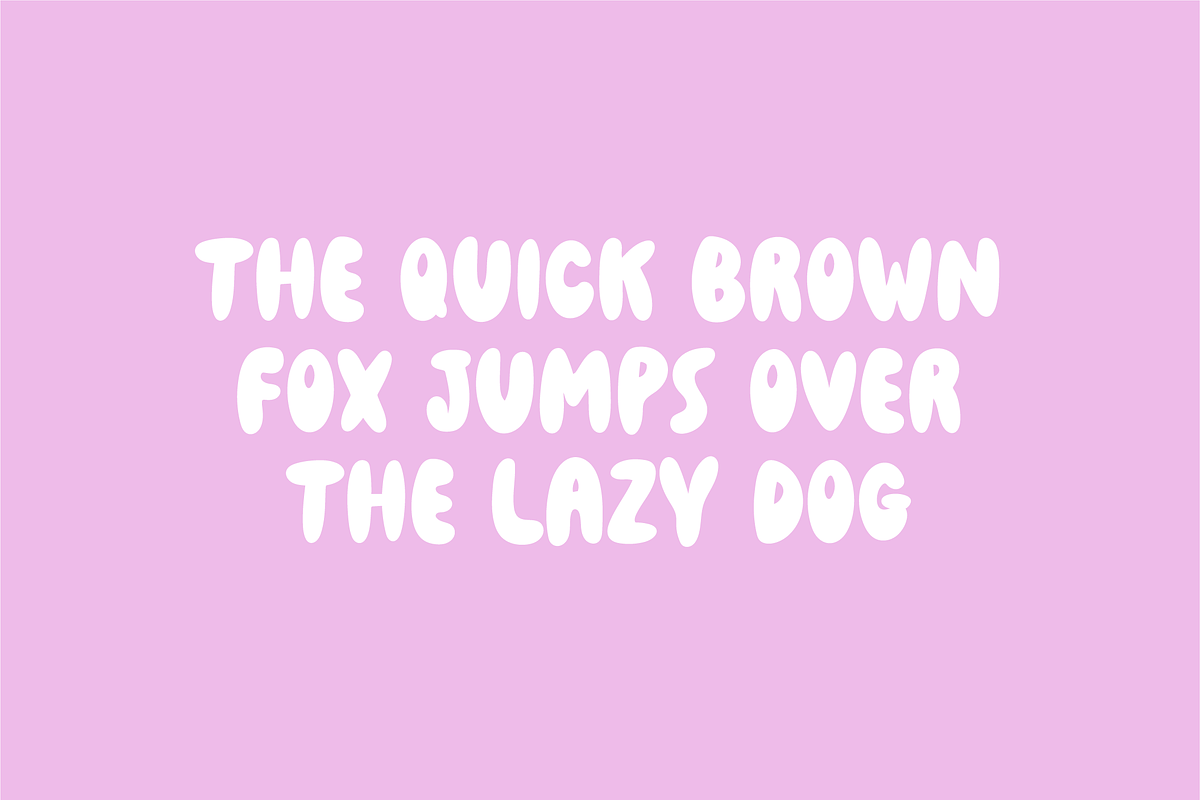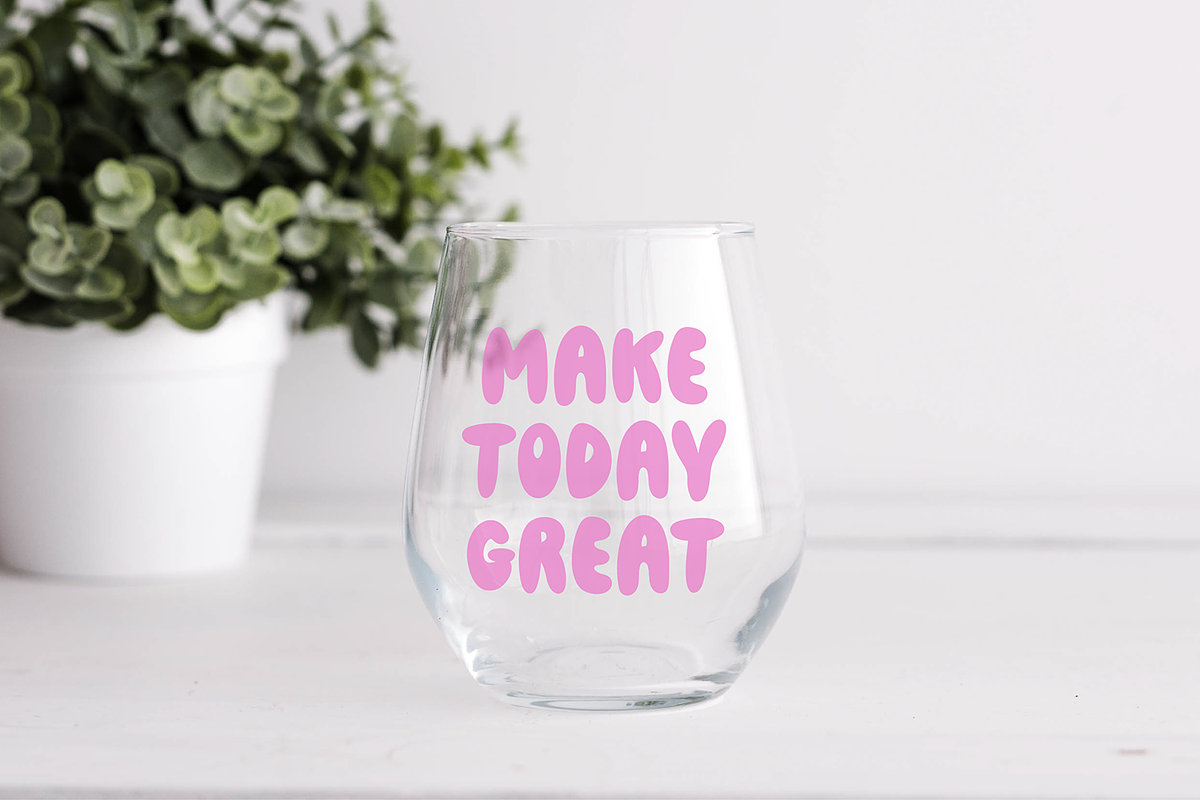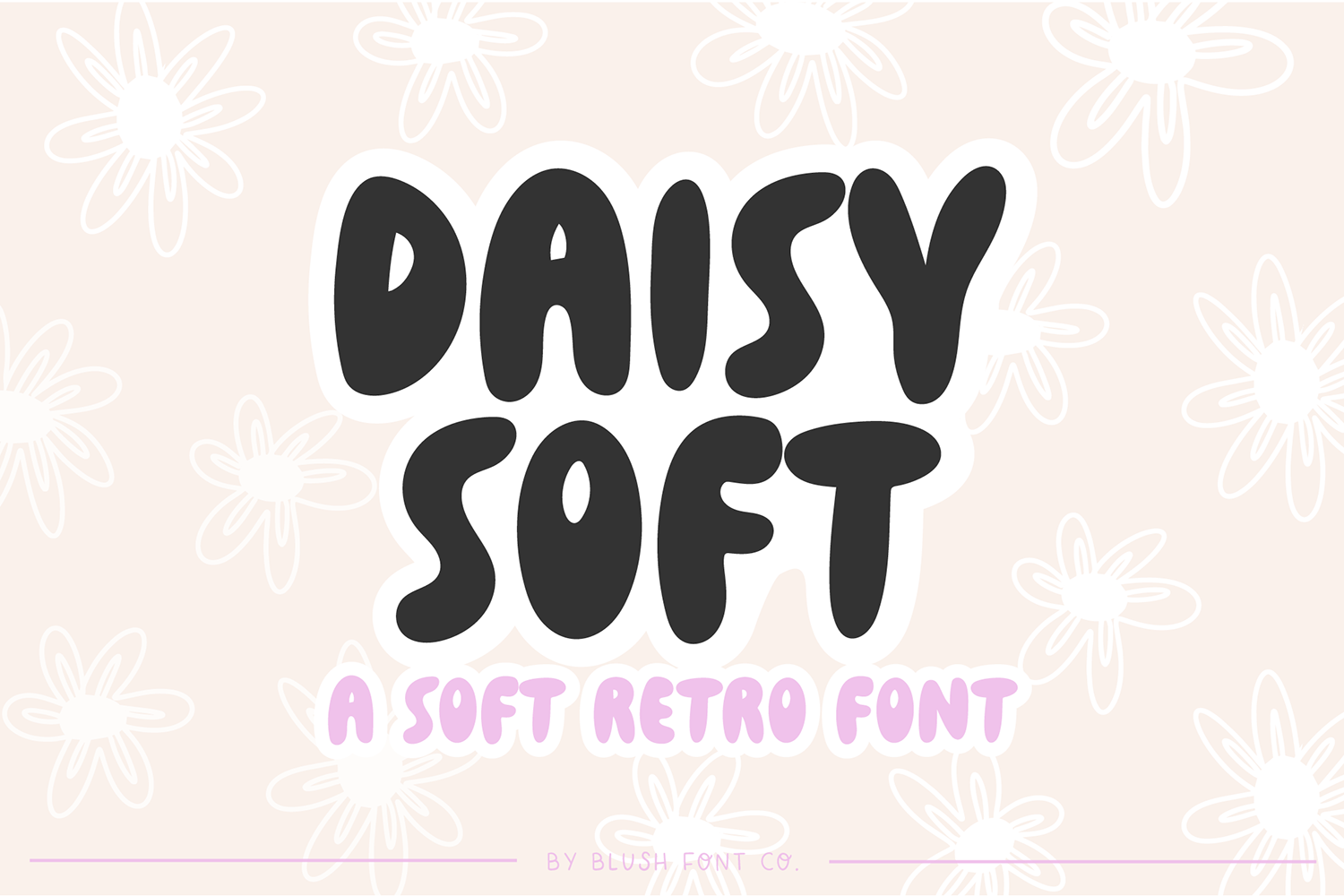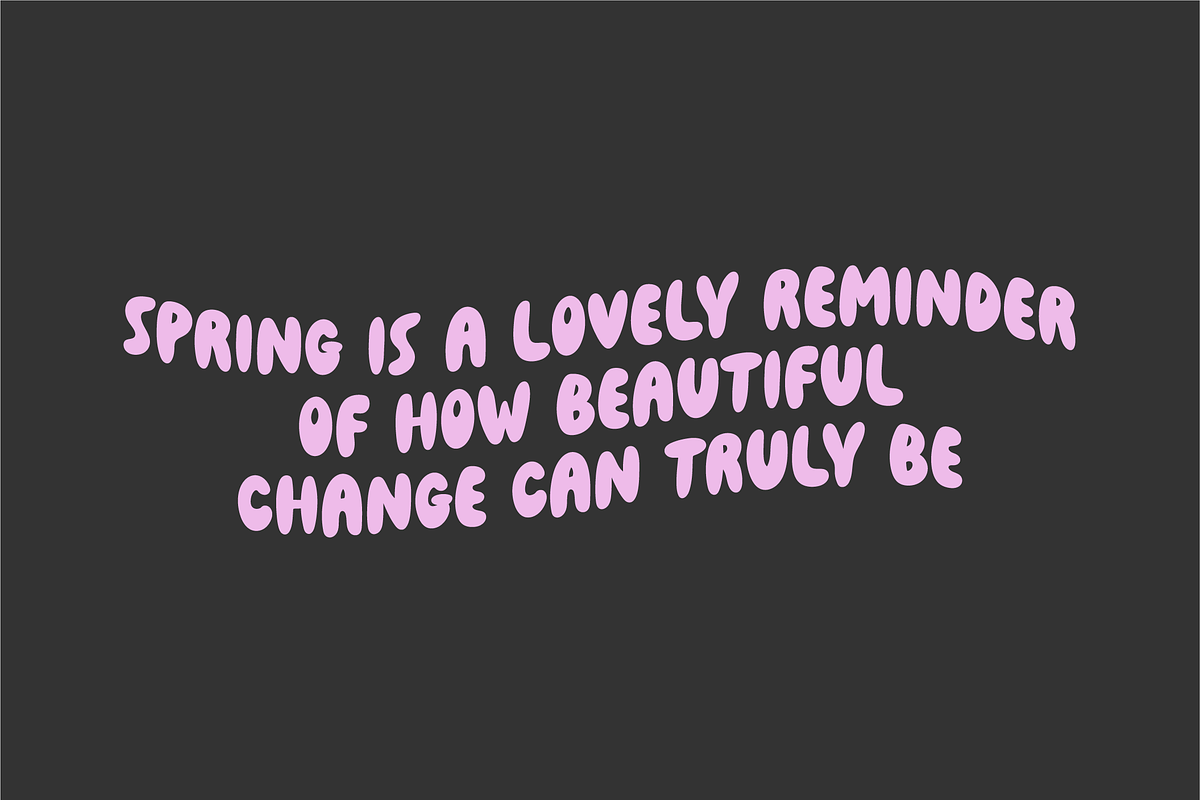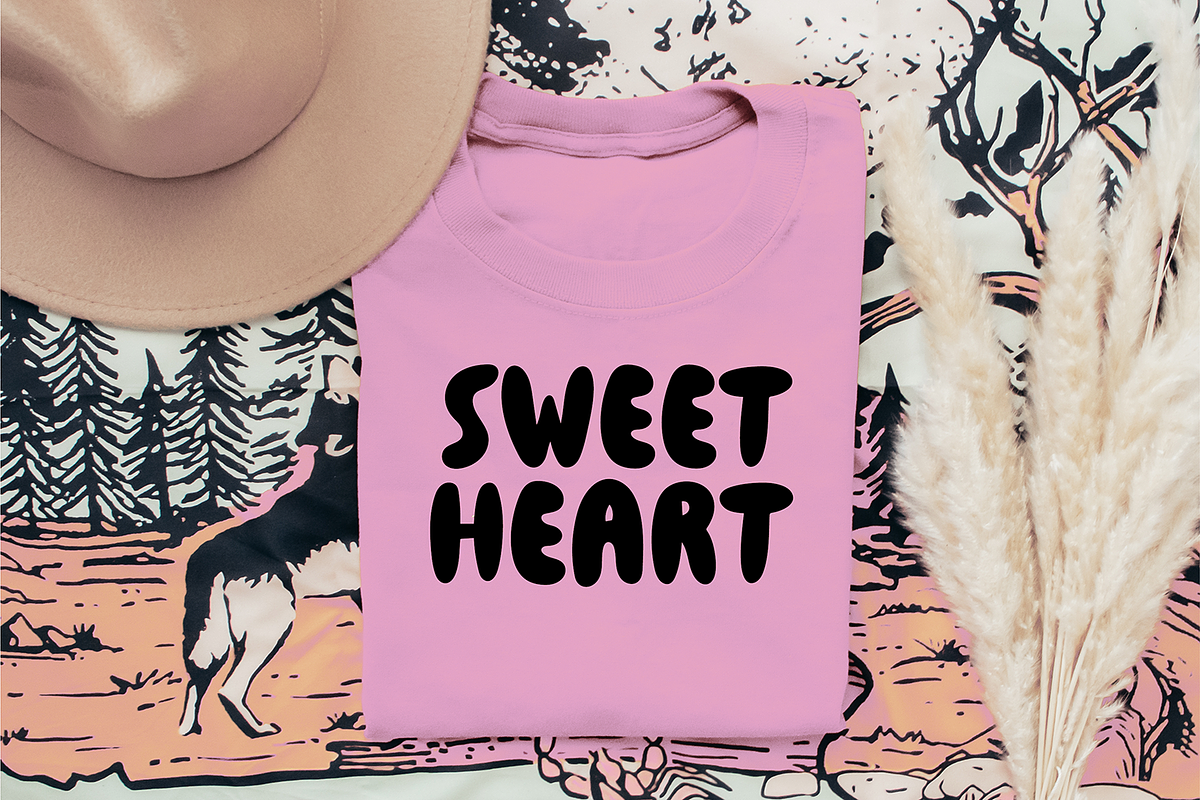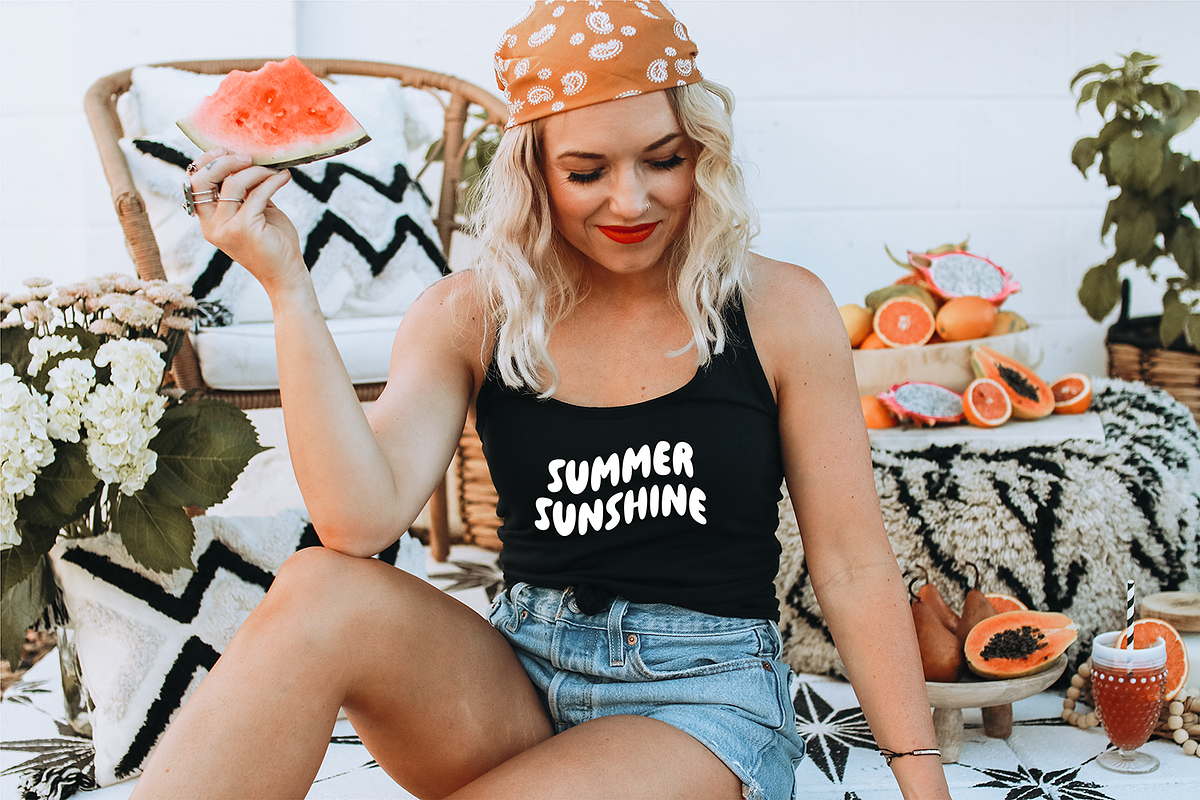
DAISY SOFT Retro Bubble Font
"Daisy Soft" a stylish retro bubble font.
This font is a trendy display font that is perfect for social media or crafty projects. Use if for branding, crafts for decor, invitations, and more!